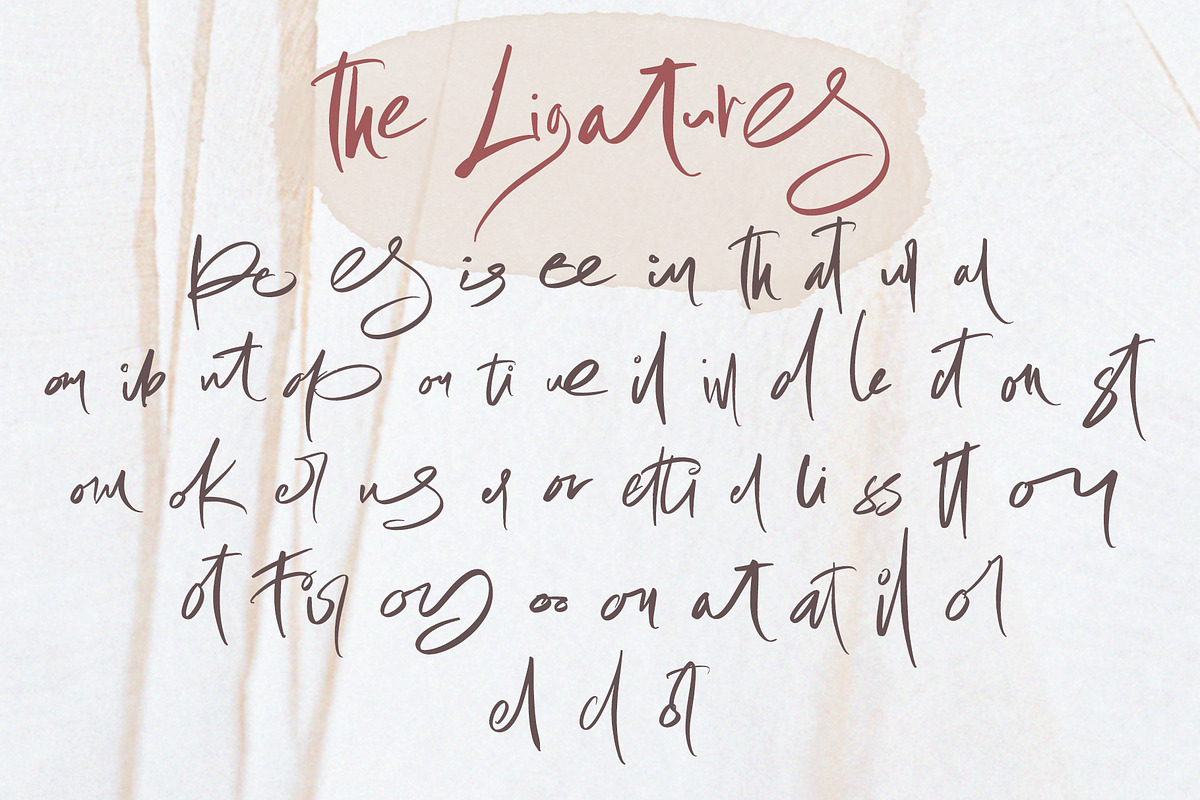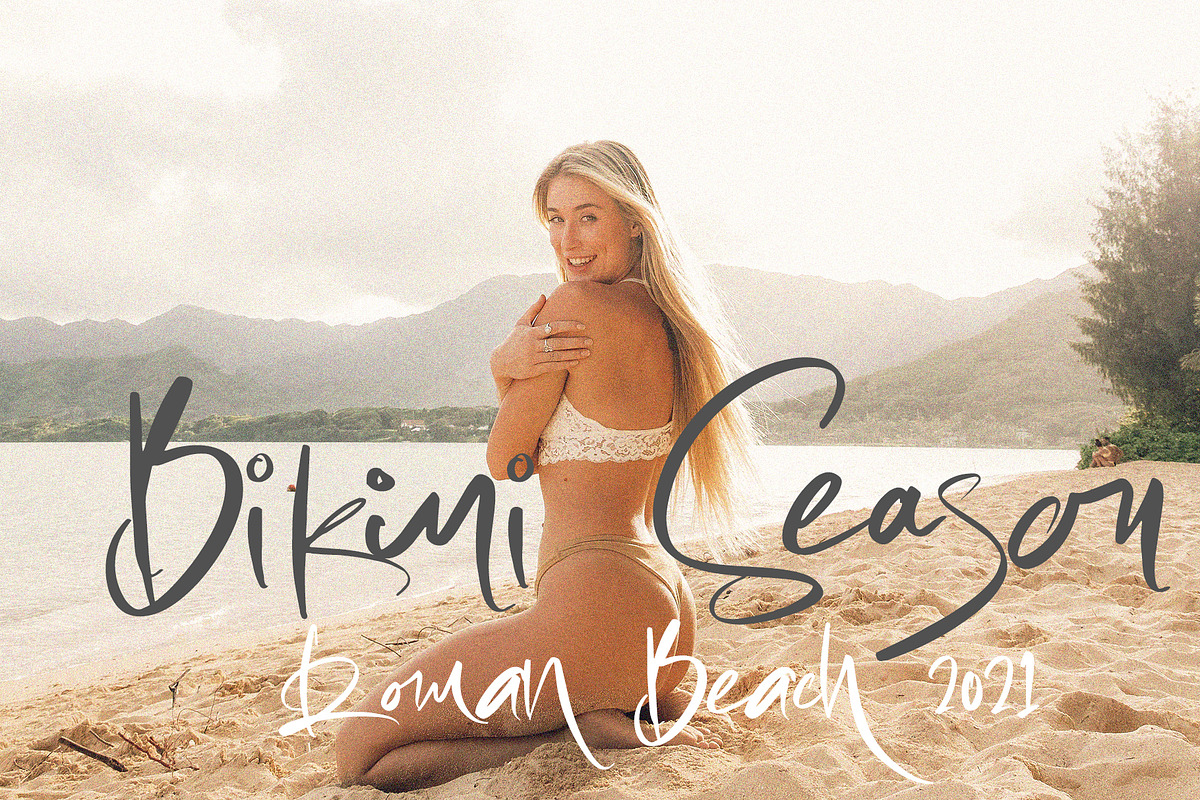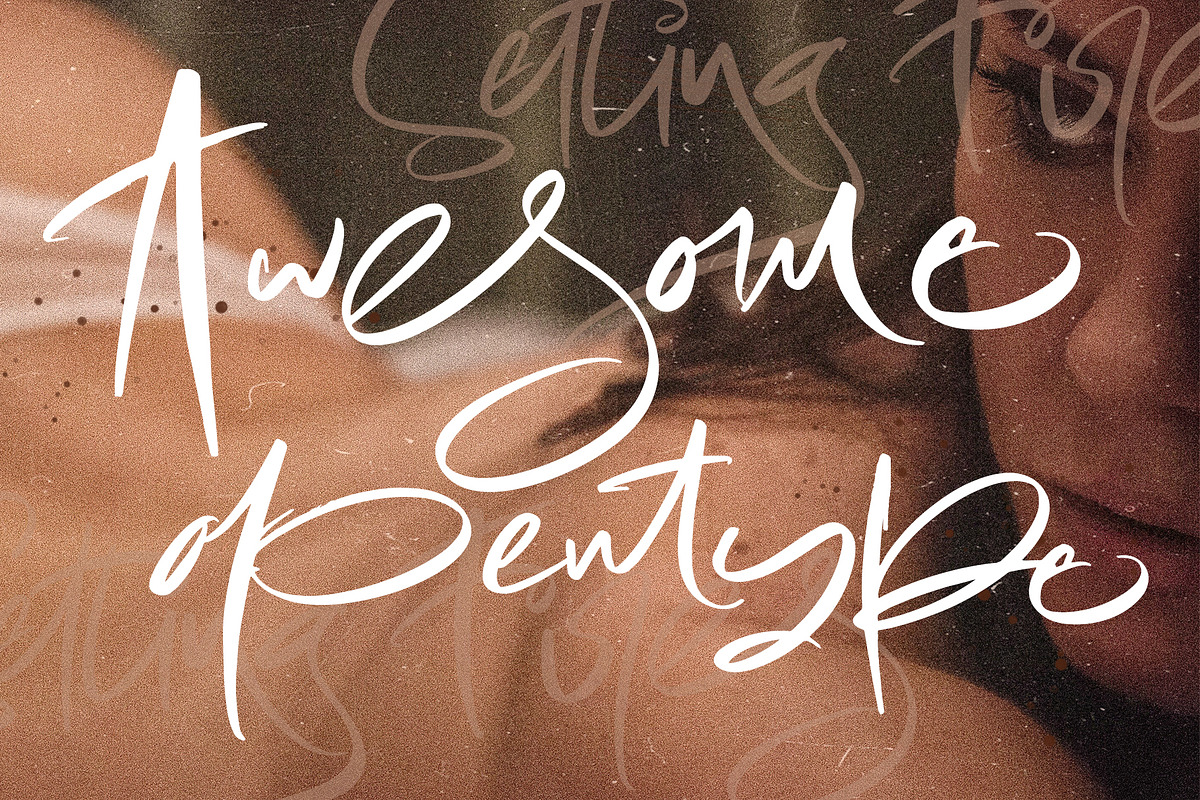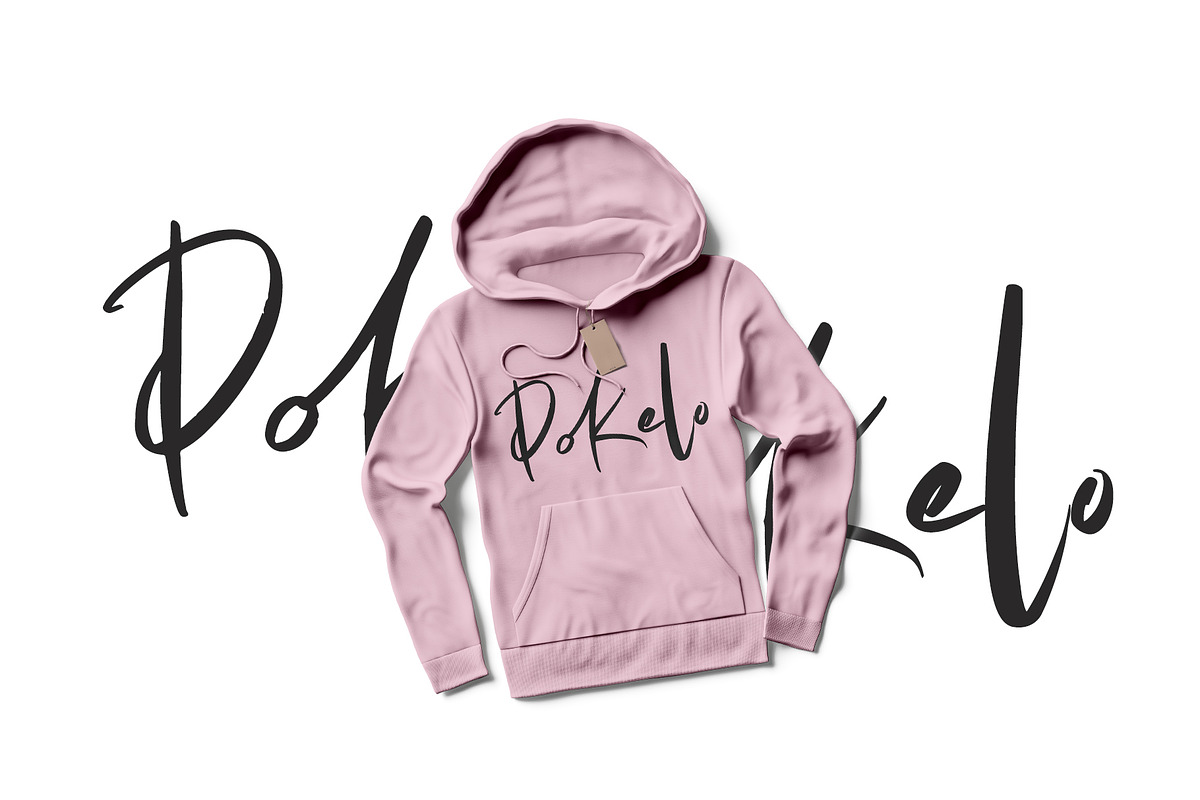
Setting fires
Setting Fires is an Casual handwitten fontinspired by natural brush typography. Written in rapid motion using a slightly dry brush pen. This will give you a fresh and elegant design. Setting Fires comes with uppercase and lowercase letters, large sets and small sets, numbers, alternative styles for several lowercase characters are also available that make your text and design more attractive.
Try Setting Fires, enjoy the richness of OpenType features and let her fun and elegant excitement make you happy and enhance your creativity! You can use this font very easily.
- Included multilingual support and special ligatures